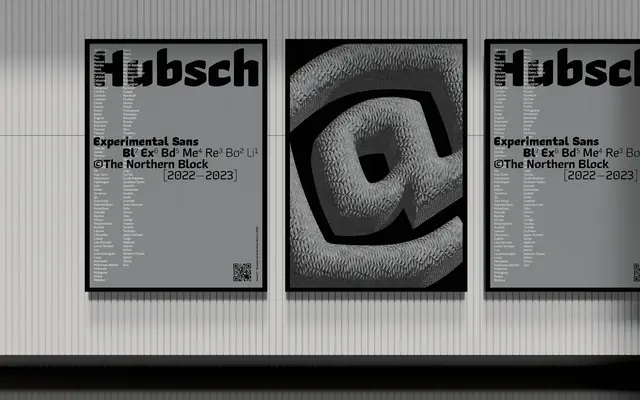
A chisel-tipped marker pen inspires this seven-weight experimental sans, where sharp angles and flowing curves produce a brutalist character suited to sports venues, video games and large-scale signage.
Drawn on the principles of a chisel-tipped marker pen, Hubsch balances thick and thin strokes through abrupt angular transitions rather than conventional modulation. The family ships as fourteen fonts plus a variable font, covering seven weights each with an oblique, and over 600 characters per style. OpenType support runs to ten number variations, ten stylistic sets and broad coverage across Western, Southern and Central European Latin.
Classified as an experimental sans-serif, drawing on chisel-tipped marker pen geometry where angular strokes meet flowing curves, producing a distinctly brutalist character rather than falling into any conventional grotesque or geometric tradition.